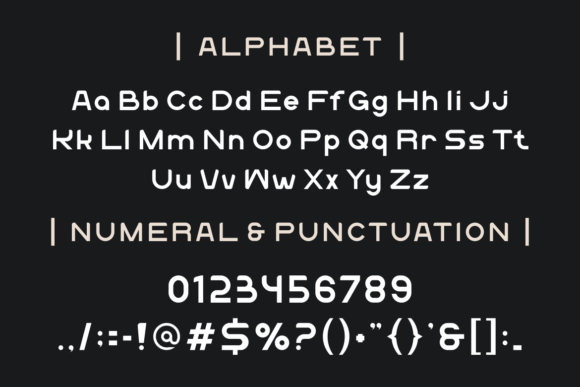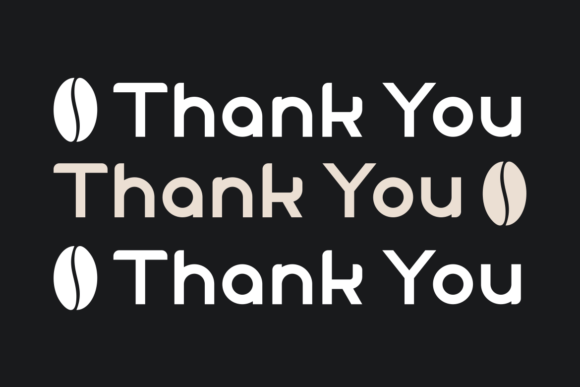
The Designer’s Dream: A Deep Dive into Chopico Font
I’ll never forget the frustration of working on a project, hours poured into every detail, only to hit a roadblock: finding the perfect font. My client wanted something modern, yet natural; something that would elevate their brand without overpowering it. That’s when I stumbled upon Chopico, a game-changing sans serif font that has since become a staple in my design library.
An Honest Review of Chopico Font
So, what makes Chopico so special? Let’s dive into the good, the great, and the quirks.
What I Love About Chopico ✨
- ✅ Modern and Natural: Chopico strikes the perfect balance between modernity and approachability, making it versatile for various design projects.
- ✅ Clean and Legible: Its sans serif design ensures clarity, even at smaller sizes, which is a must for any font.
- ✅ OpenType Features: Chopico comes with a range of OpenType features, including stylistic alternates and glyphs, allowing for creative freedom.
While Chopico is an incredible asset to any font library, there are a couple of minor considerations:
- 🤔 Limited Serif Options: As a sans serif font, Chopico might not be the first choice for projects requiring a traditional serif look.
- 🤔 Overuse of Stylistic Alternates: With great power comes great responsibility; using too many stylistic alternates can make the text harder to read.
The Story Behind Chopico
Chopico was designed with the modern creator in mind. Its designer sought to create a font that was both contemporary and timeless, versatile enough to be used in a variety of contexts, from digital interfaces to print materials. The result is a font that feels both fresh and approachable.
Q: Is Chopico suitable for body text?
A: Absolutely! Chopico’s clean design and legibility make it an excellent choice for body text in both digital and print formats.
Q: Does Chopico support multiple languages?
A: Chopico is designed to support a wide range of languages, making it a versatile choice for global projects.
Q: How does Chopico compare to other sans serif fonts?
A: Chopico stands out with its modern yet natural feel, clean lines, and extensive OpenType features, making it a unique addition to any font library.